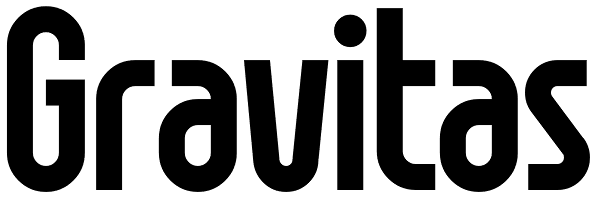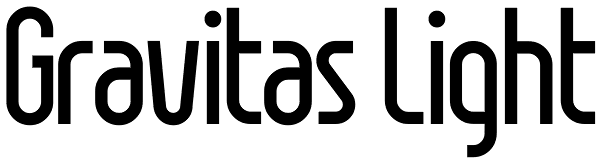
Gravitas
This font owes its inspiration to the Bauhaus, the celebrated 1920s design collective which more or less invented modernism as we know it in the applied arts: from architecture and industrial design to graphics and typography. In its day, Bauhaus...